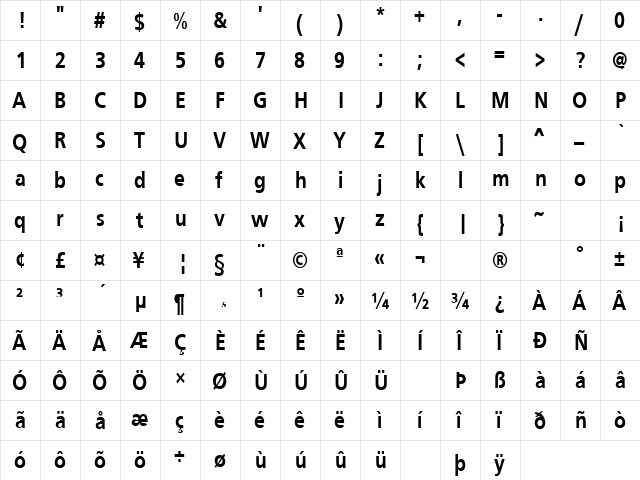
Four Sticks 20 Regular Font Preview
Four Sticks 20 Regular
Design Context for Four Sticks 20 Typeface
Four Sticks 20 offers clean, dependable letterforms without strong stylistic allegiance, making it a practical choice for designers who need flexibility.